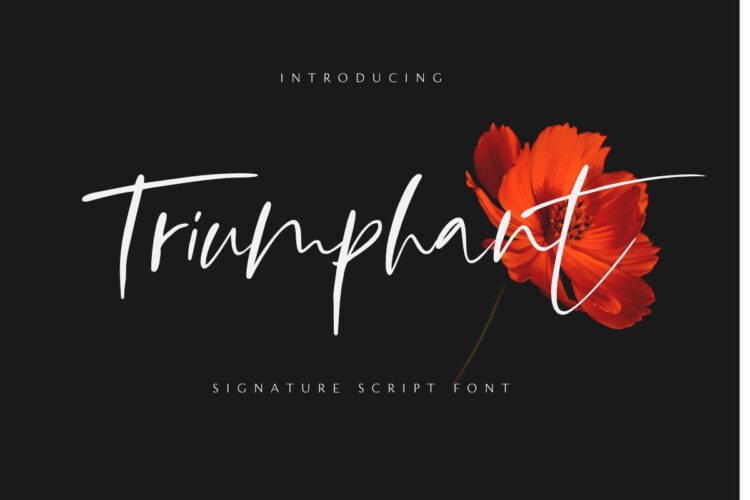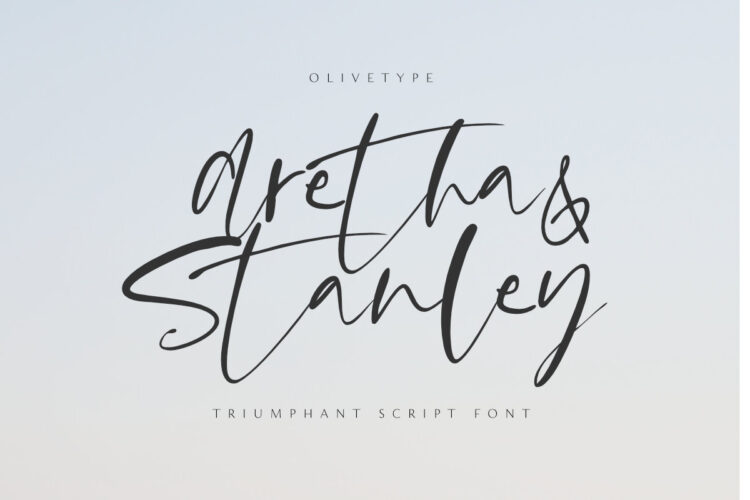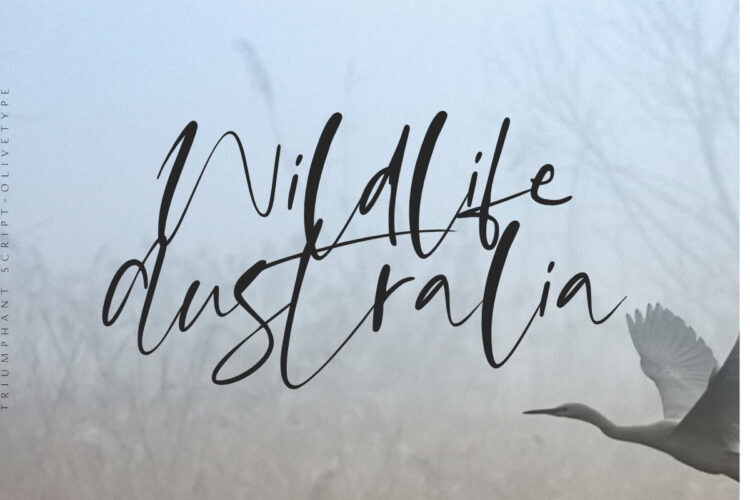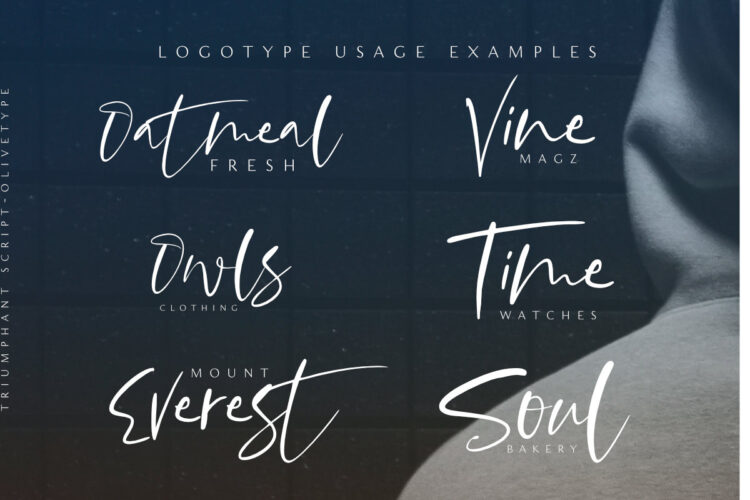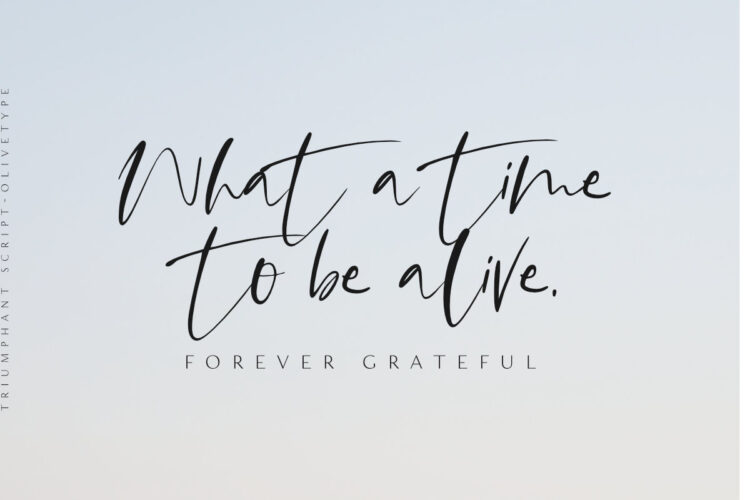
Triumphant is a stylish signature script font. It is a nice choice for creating eye-catching logos, branding, and quotes. The font Triumphant contains 207 glyphs, supporting 66 languages, which include: Afrikaans Albanian Catalan Danish Dutch English Estonian Finnish French German Italian Norwegian Portuguese Spanish Swedish Zulu, and more.
- Basic Latin A-Z & a-z.
- Numbers, symbols, punctuations
- 13 ligatures in 1 OpenType feature